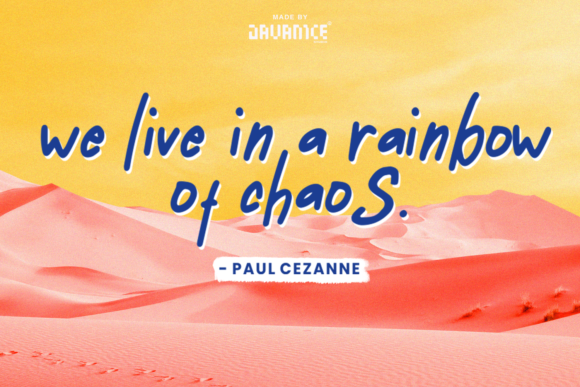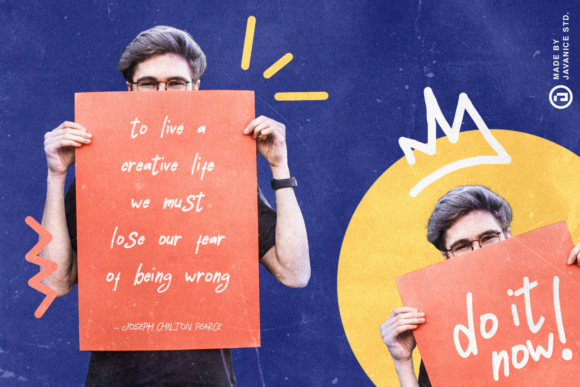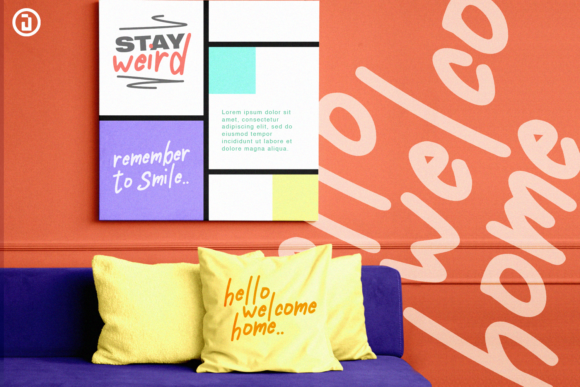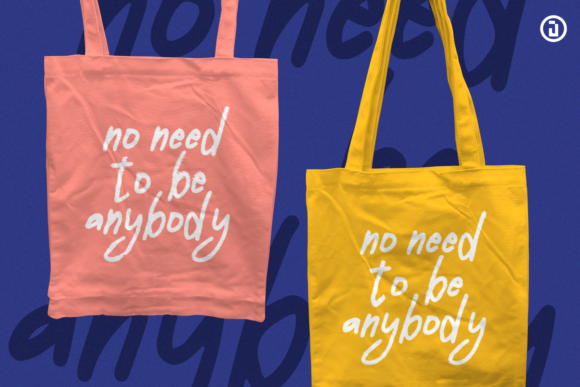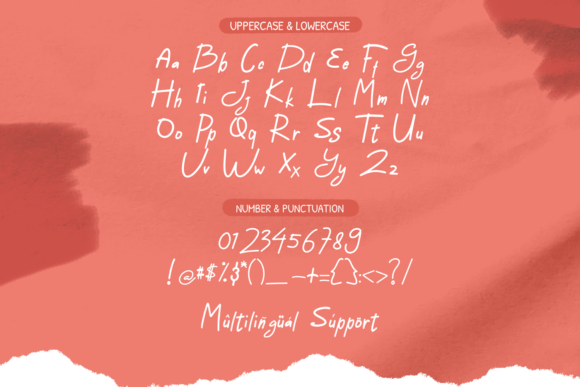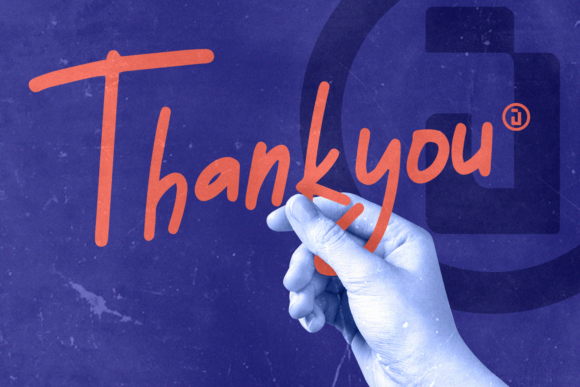
Introduction to Roundwell Font
Roundwell is a superb handwritten font that will make your work stand out through its elegant and curvy lines.
It is perfect for product packaging, branding project, magazine covers, social media, wedding, or just used to express words above the background .
Key Features of Roundwell Font
Why Choose Roundwell Font?